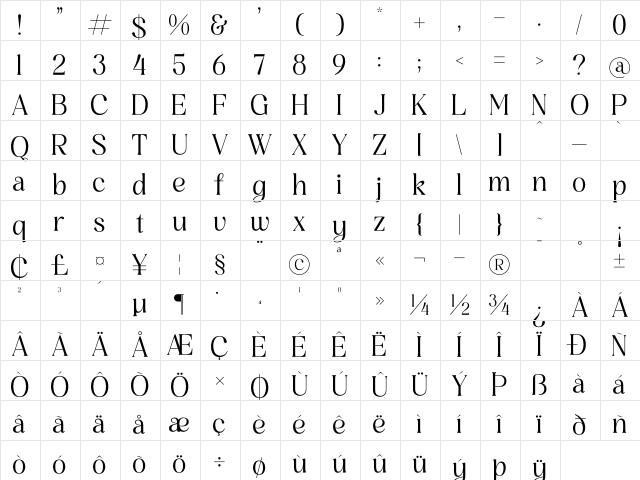
Simple Michael Regular Free Font
Simple Michael Regular
Foundry: Storytype Studio
Designer: Heru Utama Putra
Design Context for Simple Michael
Simple Michael is a composed and adaptable typeface that performs quietly and consistently across a wide range of design contexts.